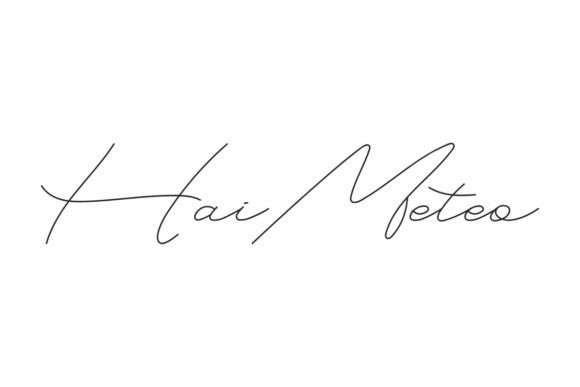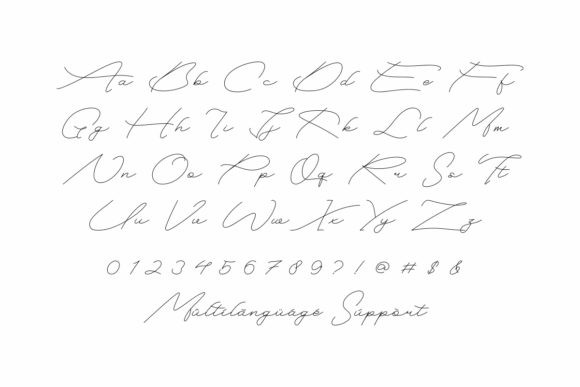
Hai Meteo Font
Hai Meteo FontHai Meteo is a thin and delicate handwritten font. Use it to make your ideas even more realistic and create spectacular designs!